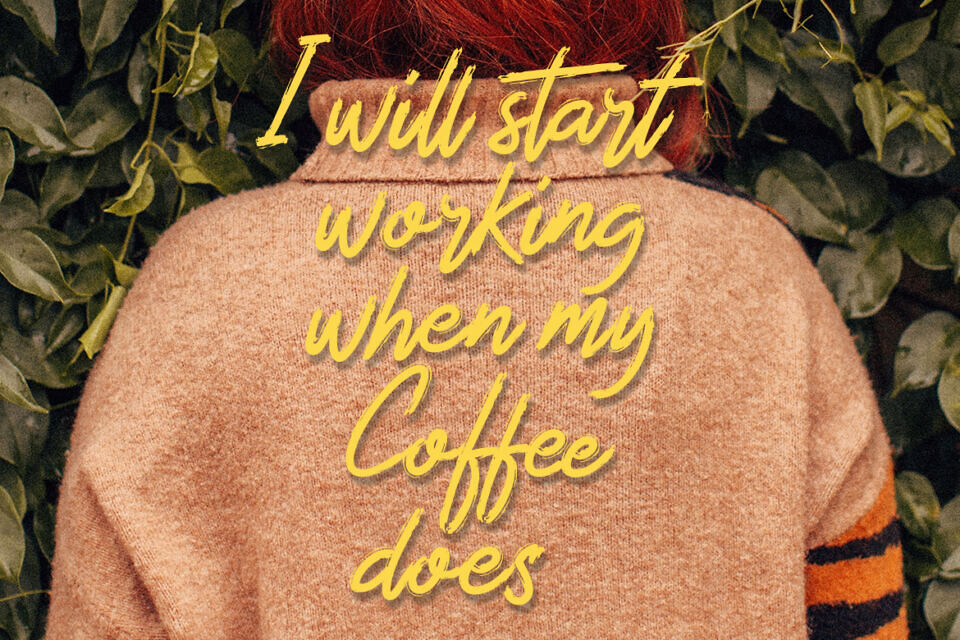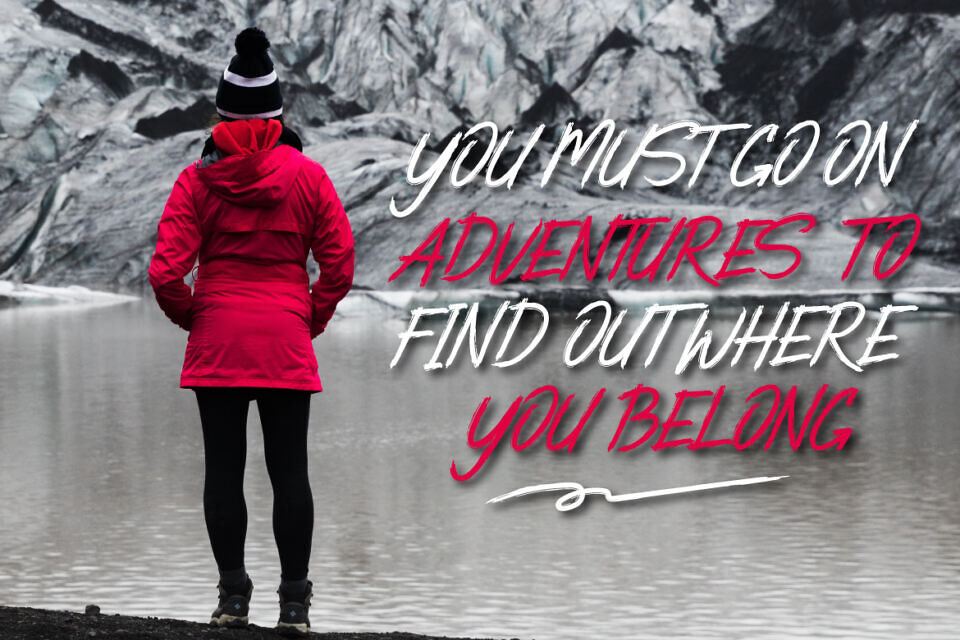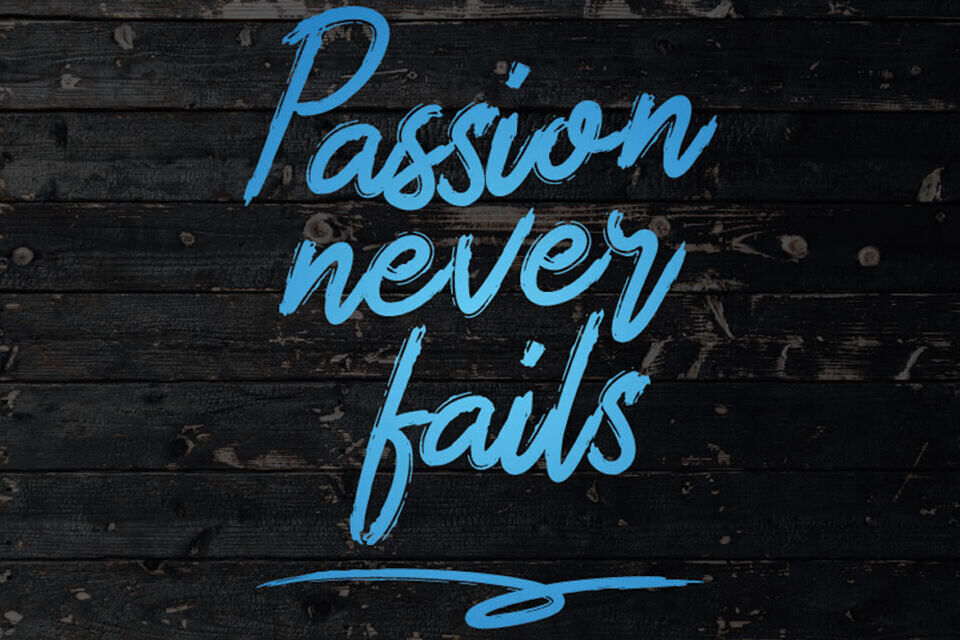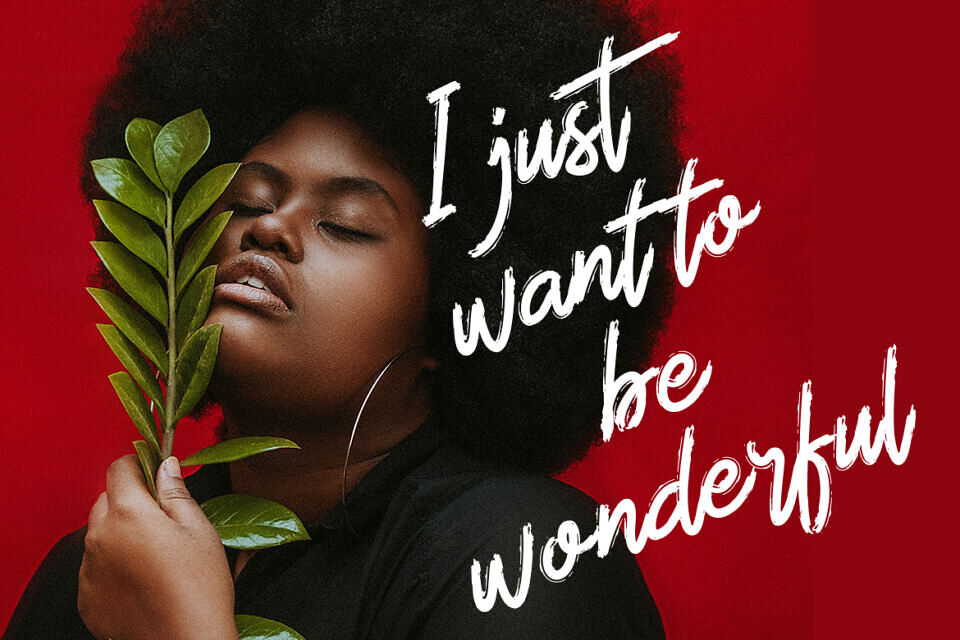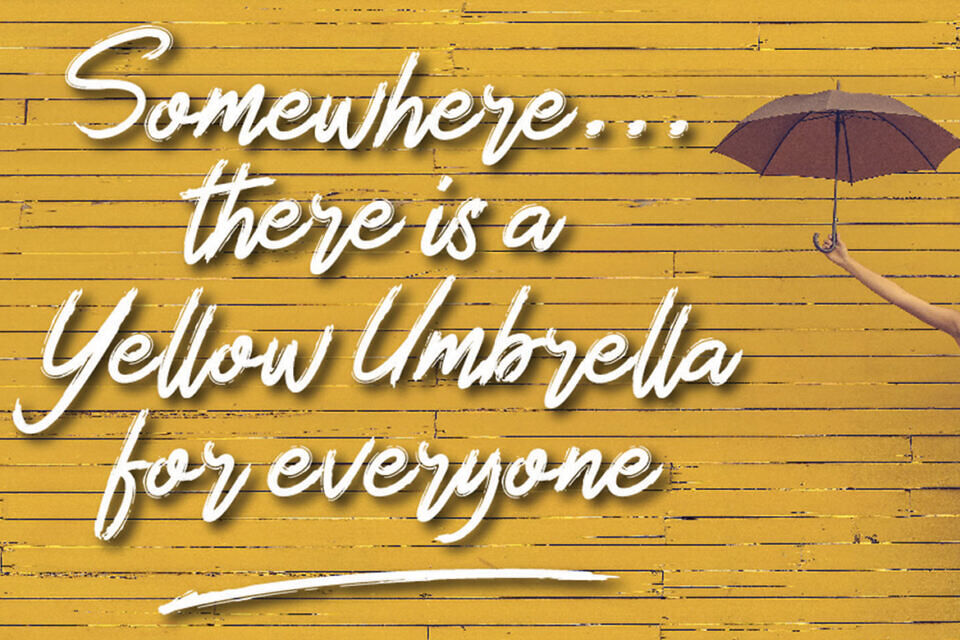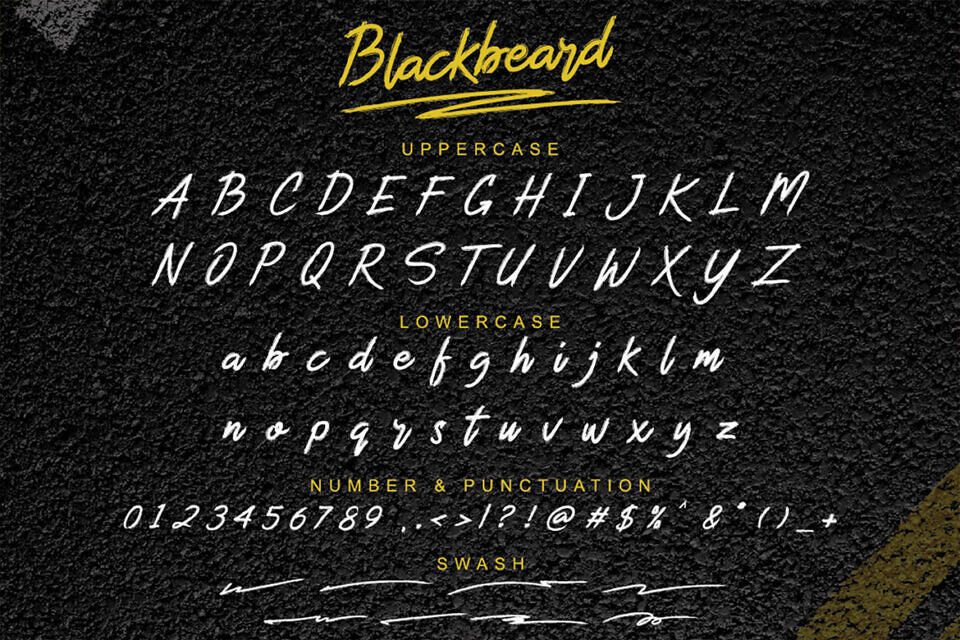
Blackbeard Font
Blackbeard Handbrush Font is a brush script that is written casually and quickly. Blackbeard is perfect for homeware designs,branding projects, logo design, quotes, product packaging – or simply as a stylish text overlay to any background image.